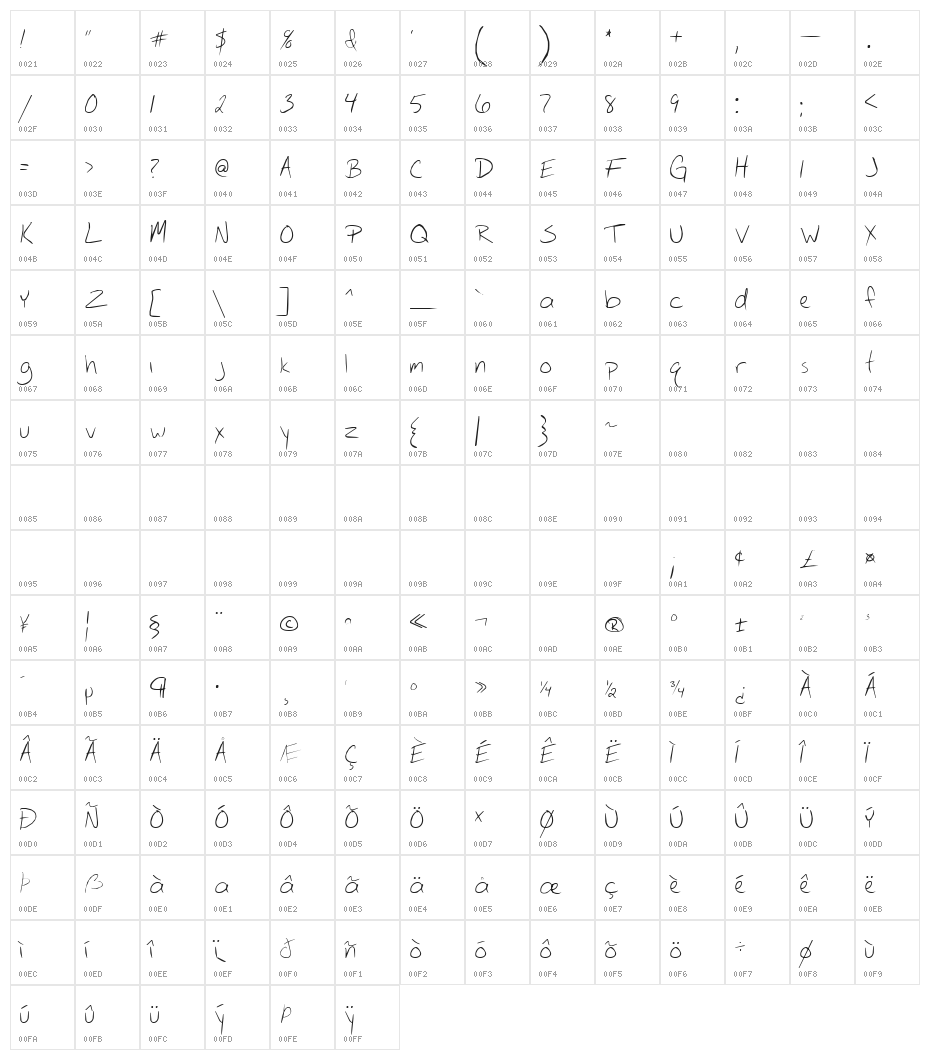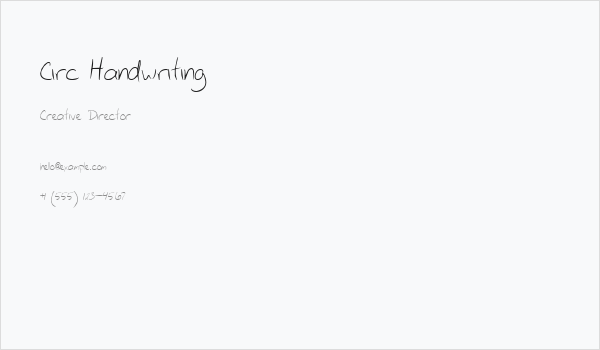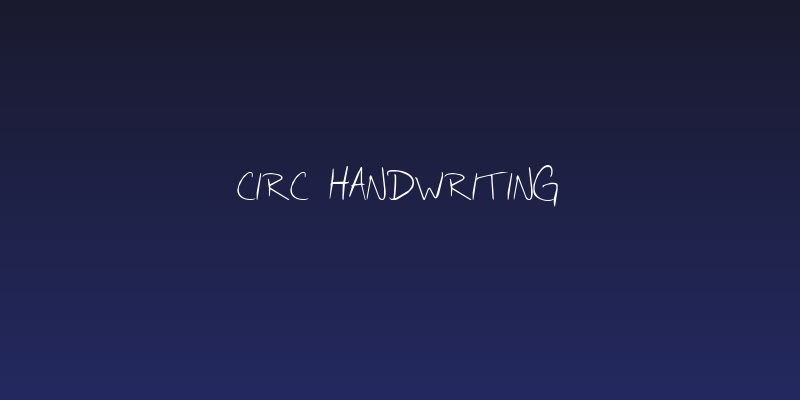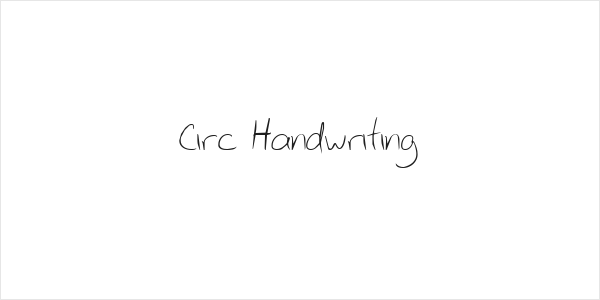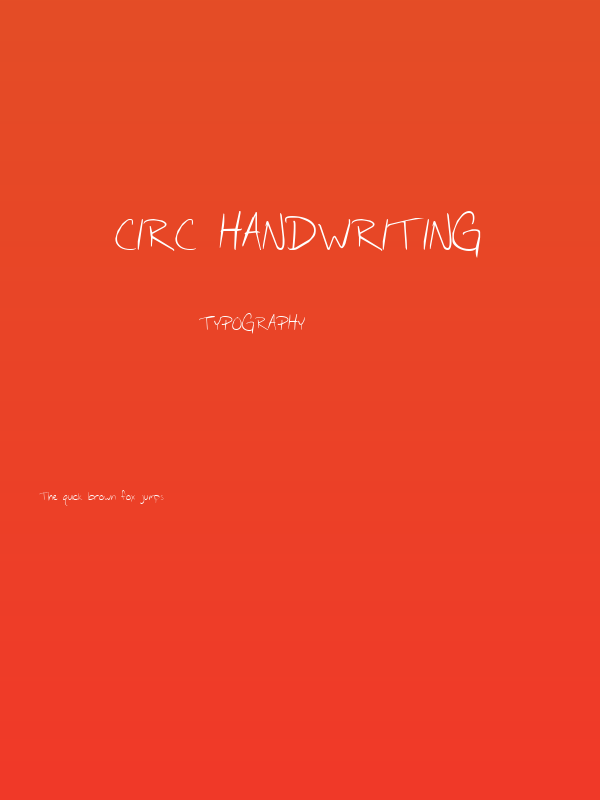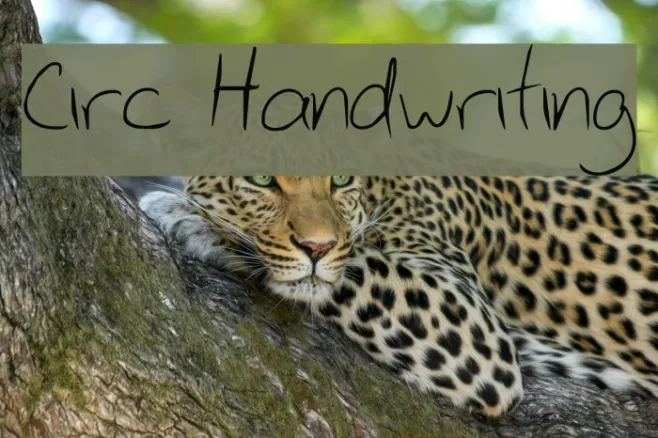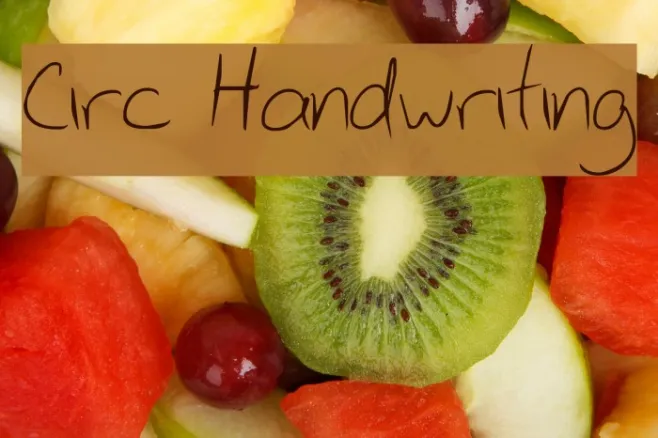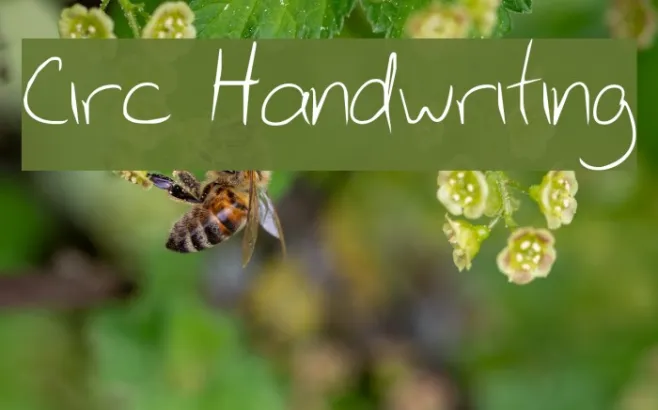
Circ Handwriting Font
Circ Handwriting Description
This font exudes a casual and personal touch, reminiscent of natural handwriting. The characters are fluid and slightly irregular, adding a human element to the text. The strokes vary in thickness, giving it a dynamic and lively appearance. The uppercase letters are bold and assertive, while the lowercase letters maintain a friendly and approachable demeanor. Numbers and special characters are crafted with the same playful style, ensuring consistency throughout. This font is perfect for projects that require a personal or informal tone, such as greeting cards, personal blogs, or creative projects.
| Overall Style | Casual, Personal |
| Proposed Projects | Ideal for greeting cards, personal blogs, creative projects, and informal communications. |